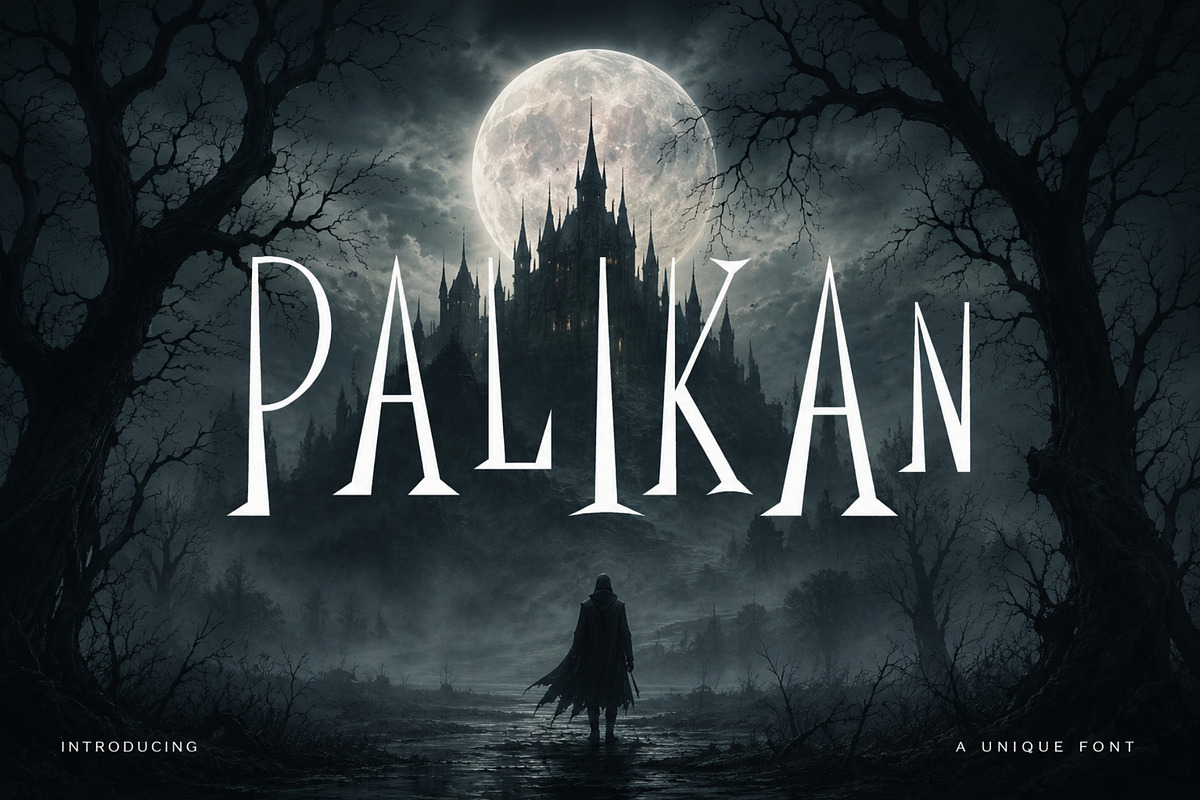
Palikan - Horror Display
Palikan is a unique serif that's thin at the top and thick at the bottom. This typeface was expertly designed to make your creations look out of this world. Palikan was specifically created to give off creepy and horror vibes. Ideal for posters, movies, books, covers, magazines, and more. Make your horror designs standout with Palikan today.